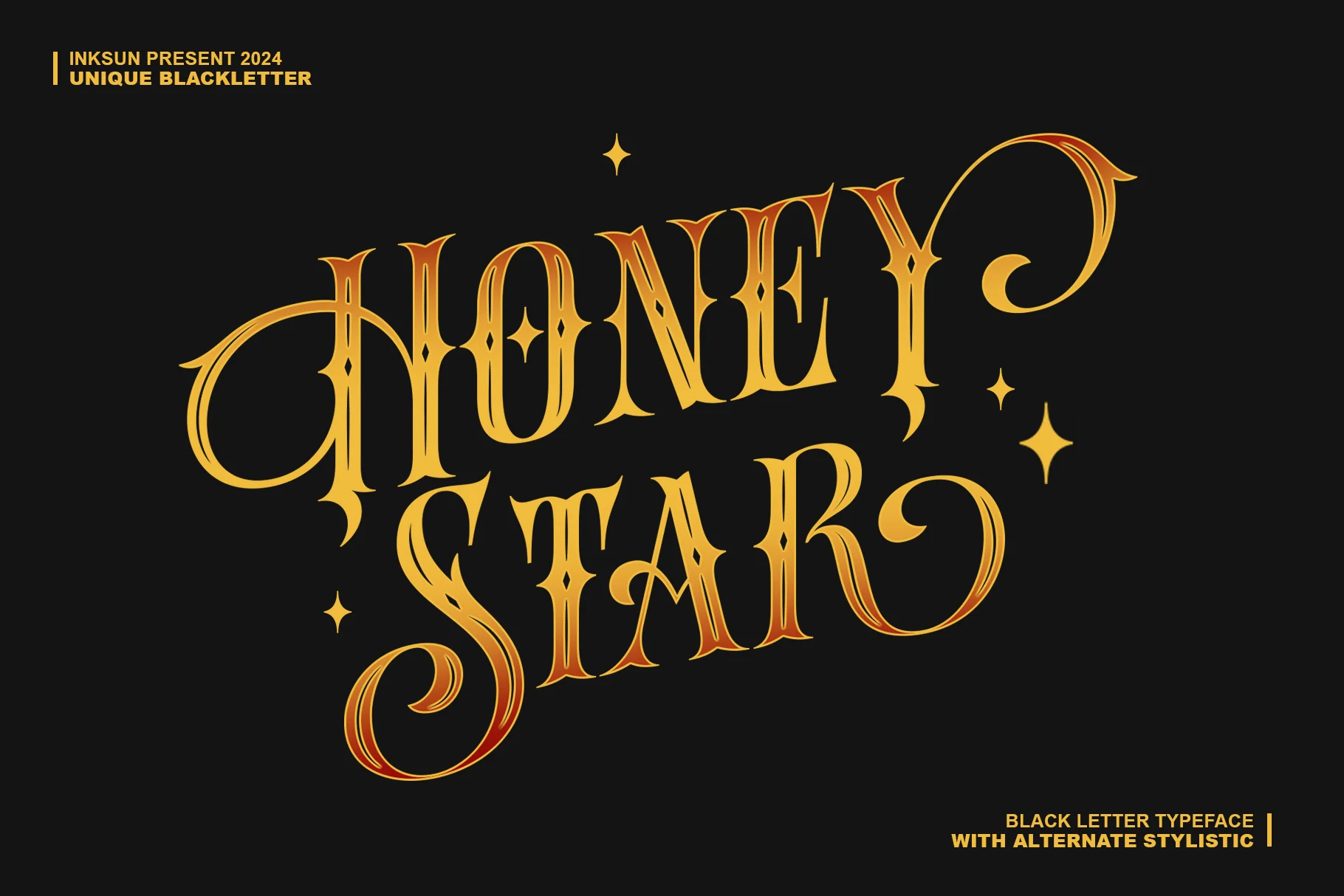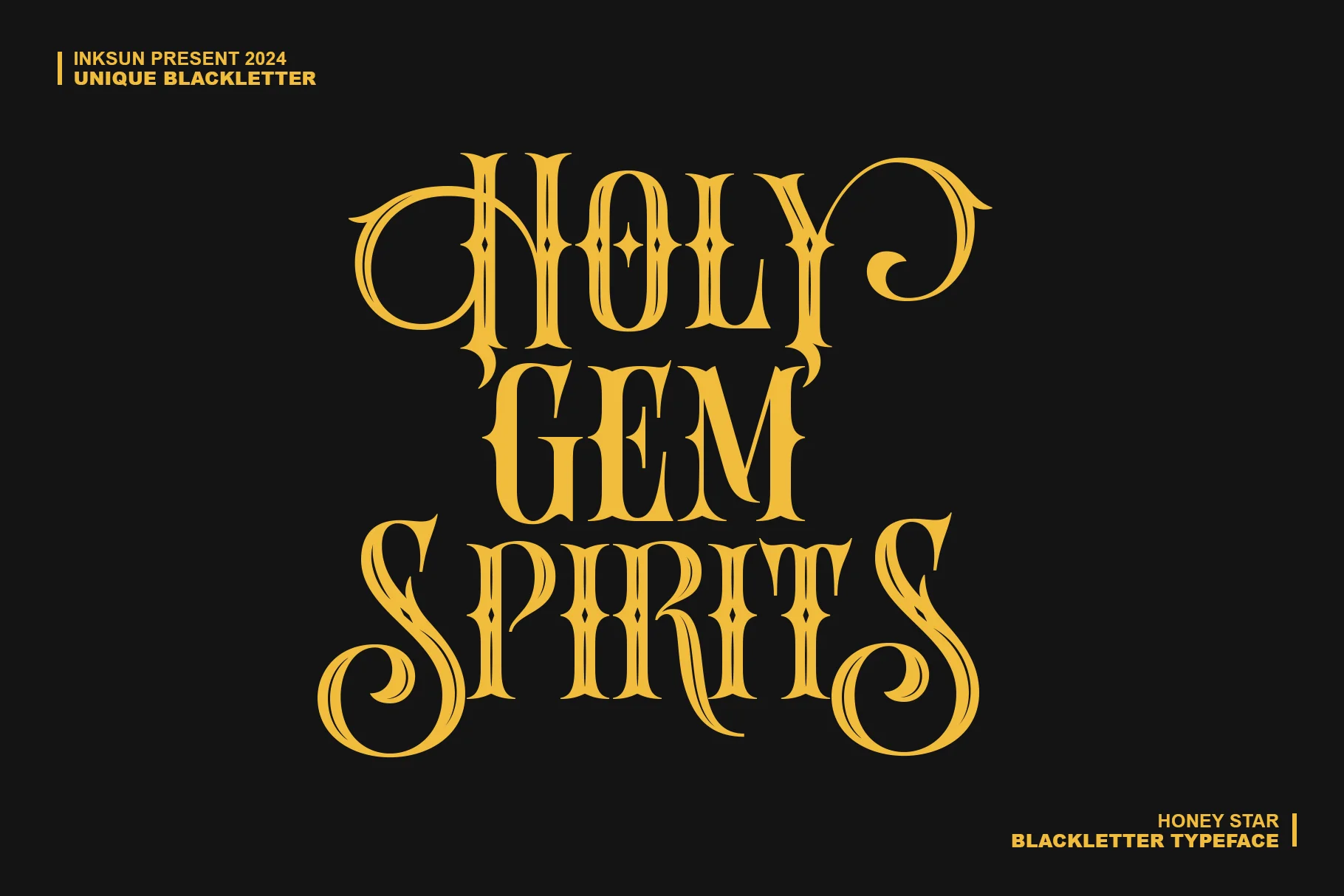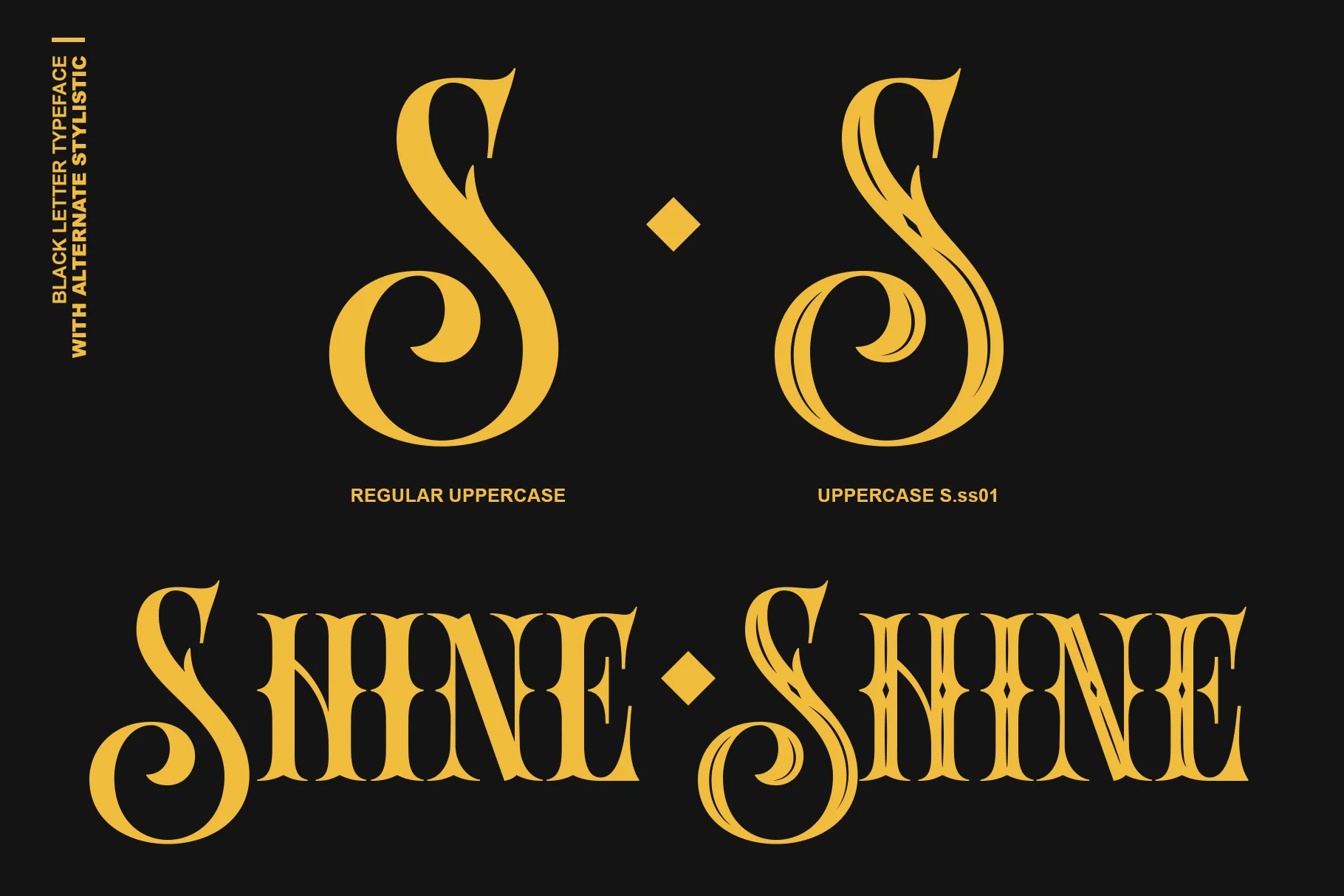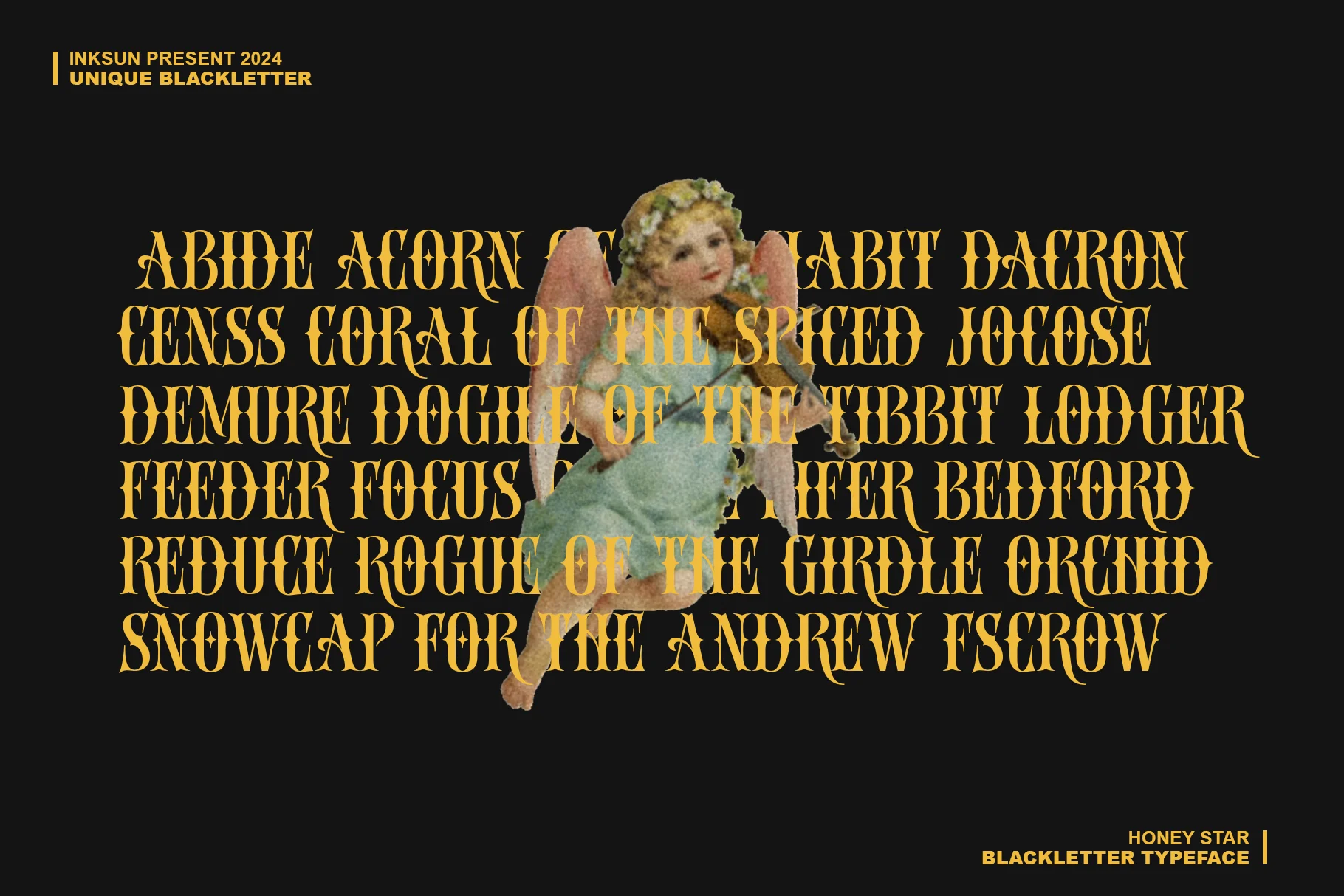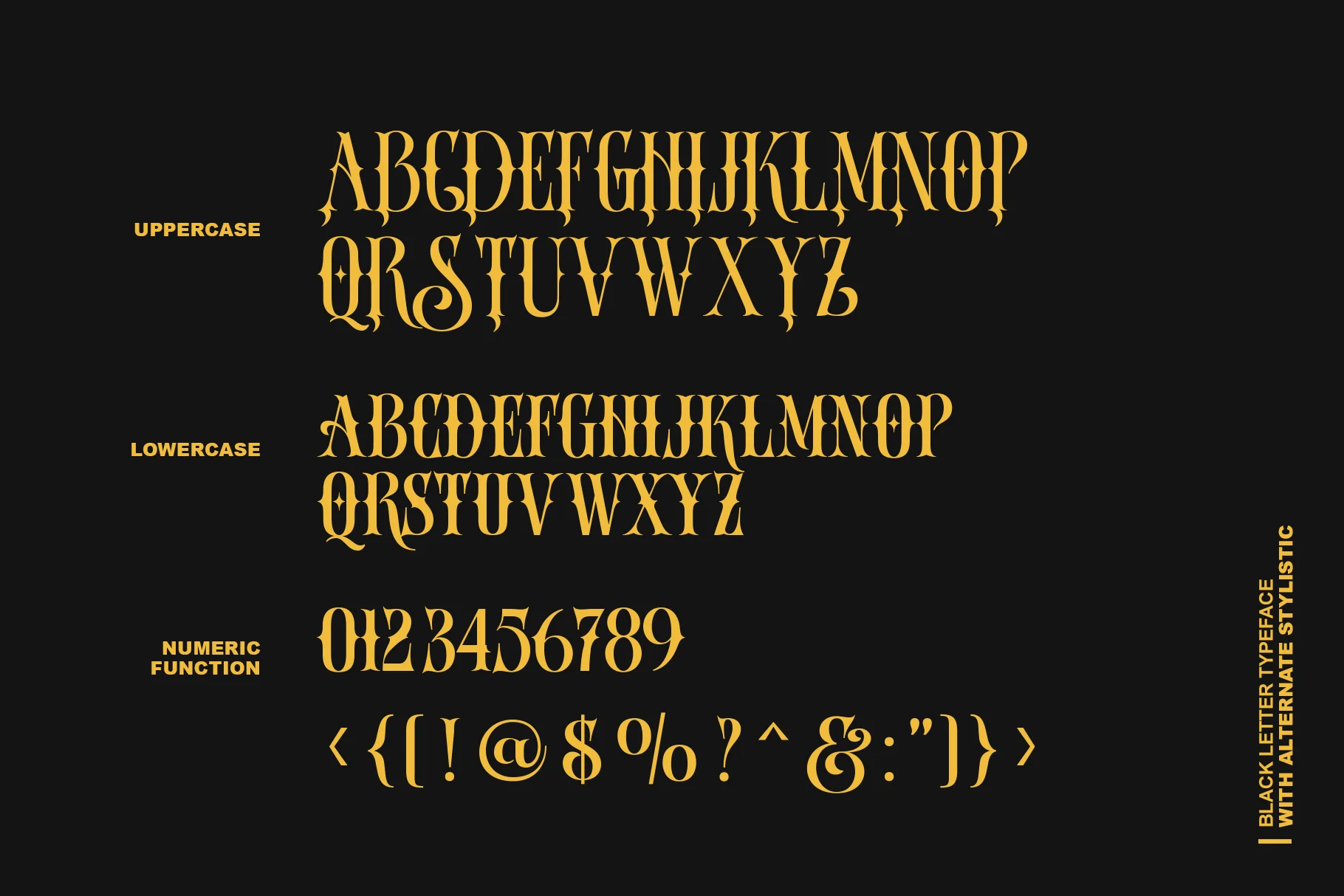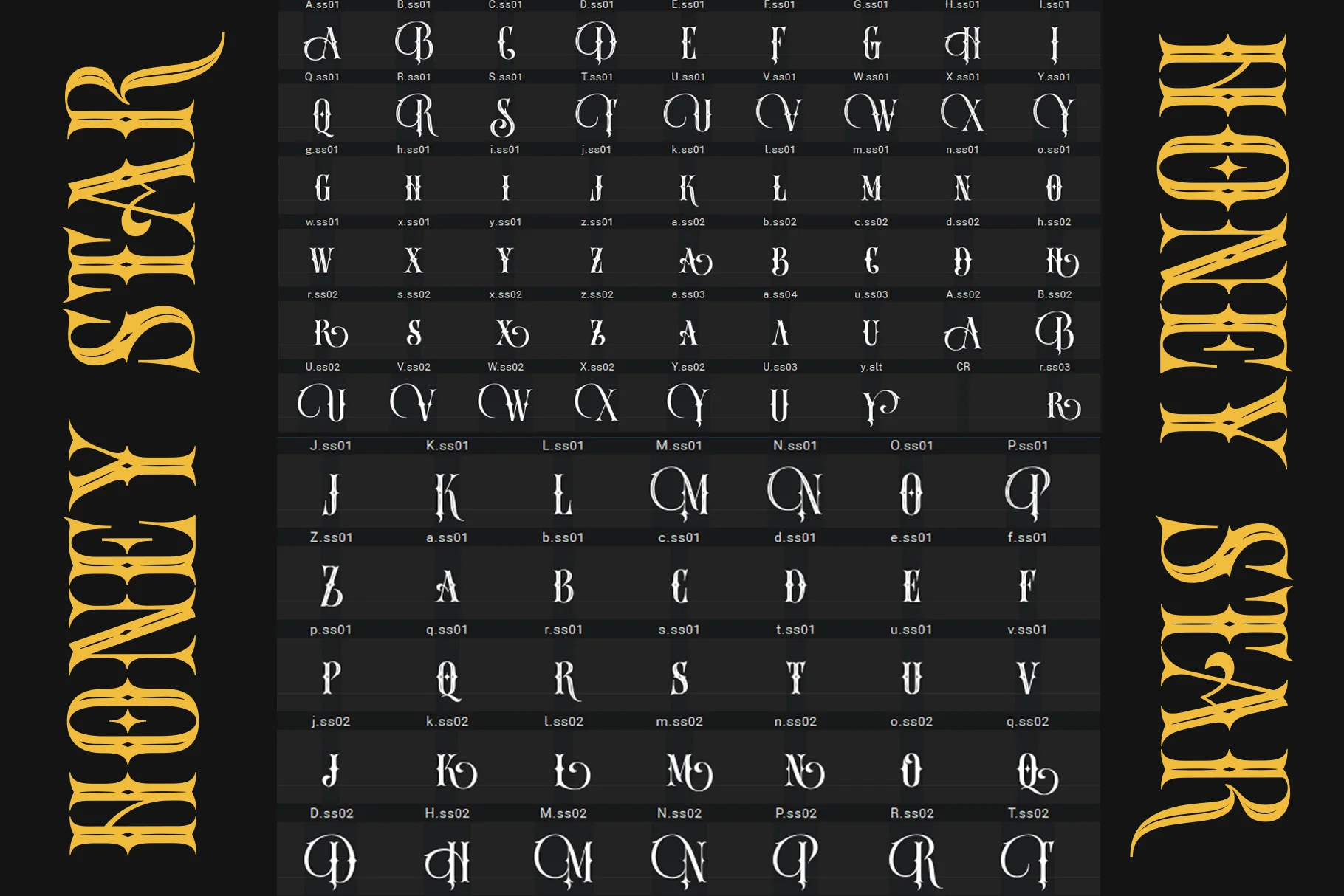
Honey Star
Honey Star is a modern typographic masterpiece that reinterprets the traditional Blackletter style into something more elegant, magical, and artistic. This font combines the strictness of a Gothic structure with the flexibility of luxurious swashes.
Equipped with alternate stylistic features that allow each letter to have a decorative ending or dramatic circular curve, giving it an exclusive and "custom-made" feel. It has a sharp contrast between thick and thin lines, creating a dynamic and luxurious visual rhythm.
Best Uses:
- Tattoo Design & Merchandise: Very popular for tattoo designs, band t-shirt designs, or premium streetwear products that require a strong character.
- Exclusive Logos & Branding: Ideal for perfume brands, beverage labels, or visual identities that want to emphasize a sense of mystery, classicism, and luxury.
- Event & Poster Art: Provides instant visual impact on music posters, album covers, or invitations to gothic/fantasy-themed events.
- Game & Movie Titles: Perfect for project titles that feature elements of magic, medieval history, or fantasy worlds.